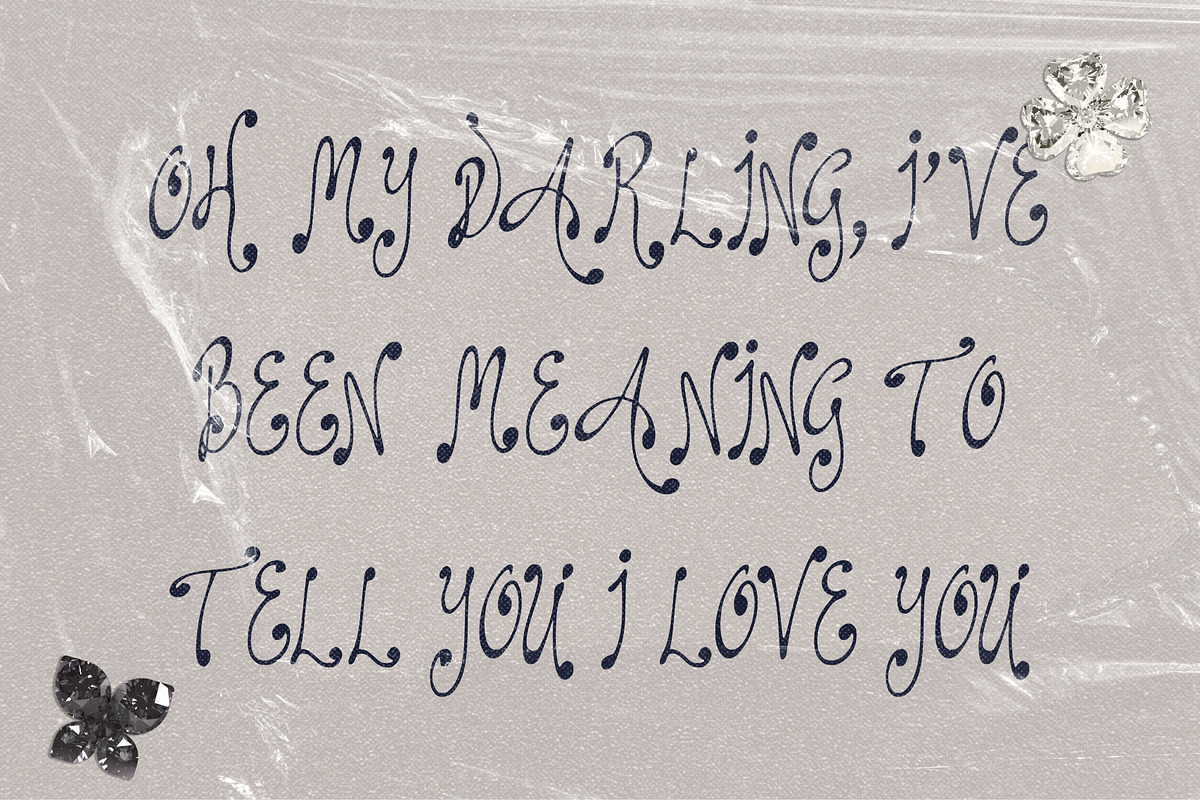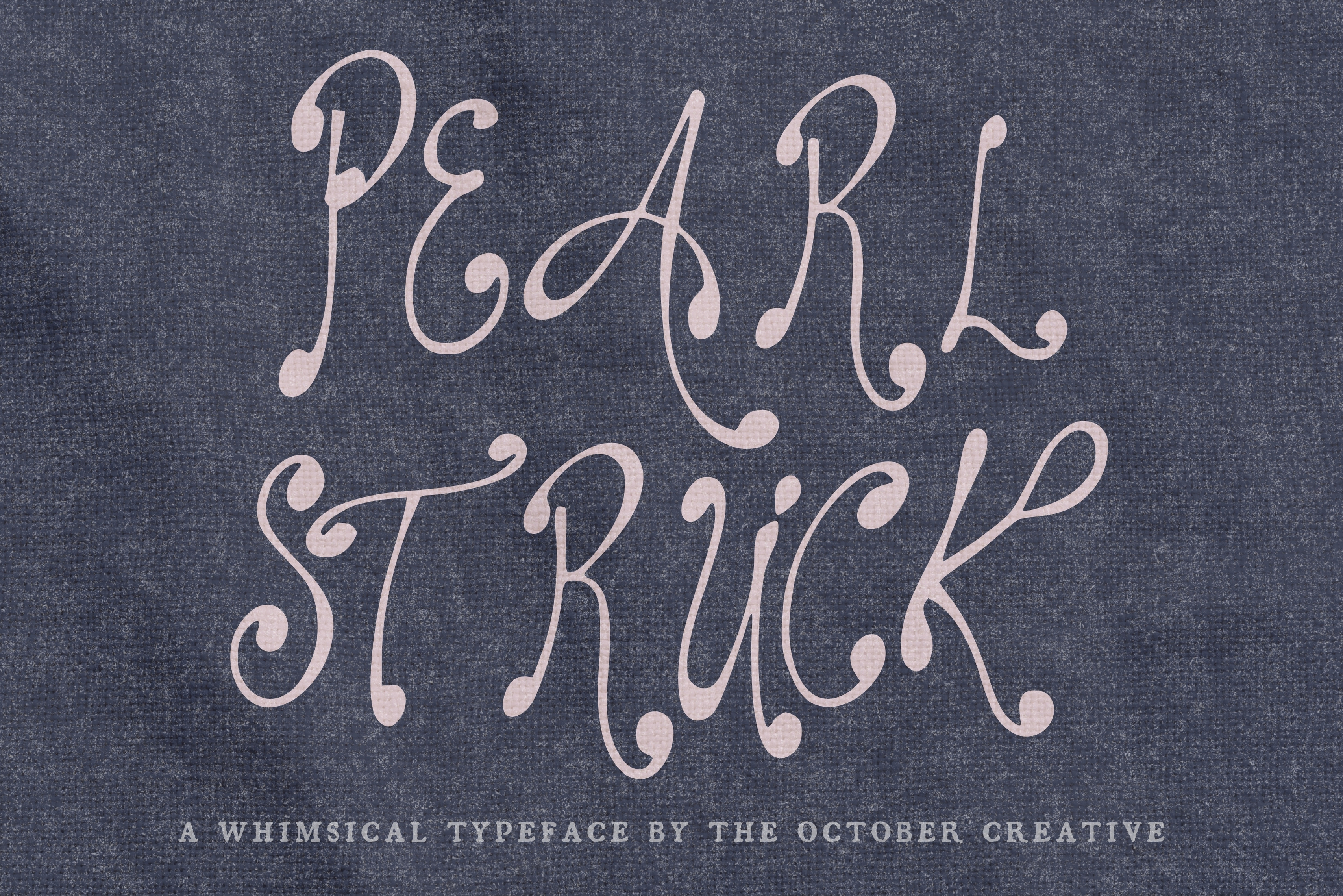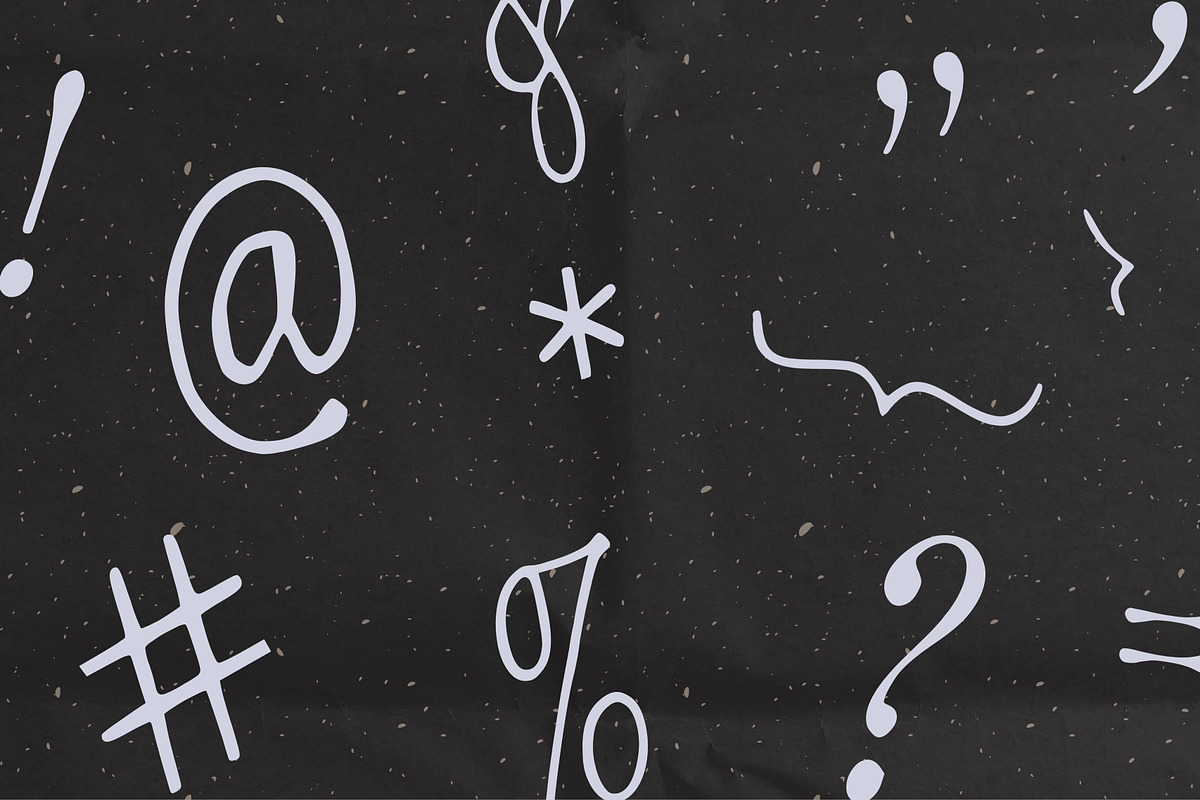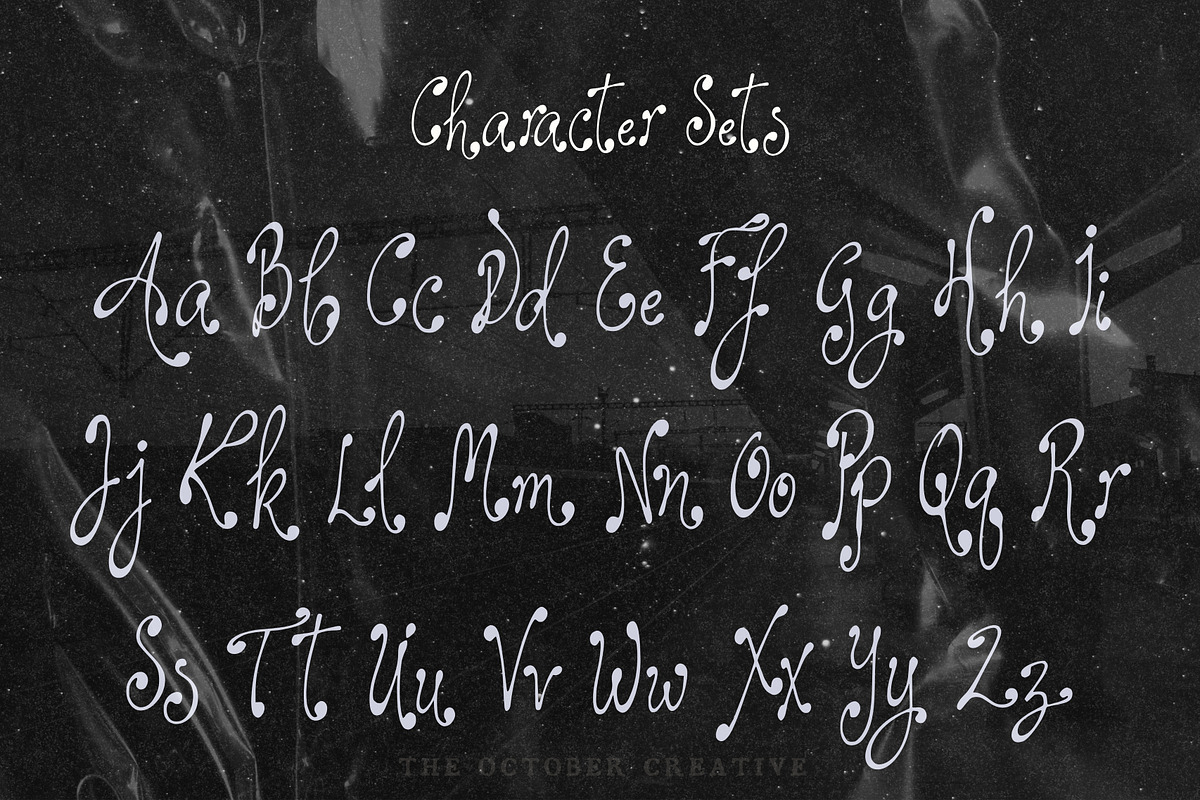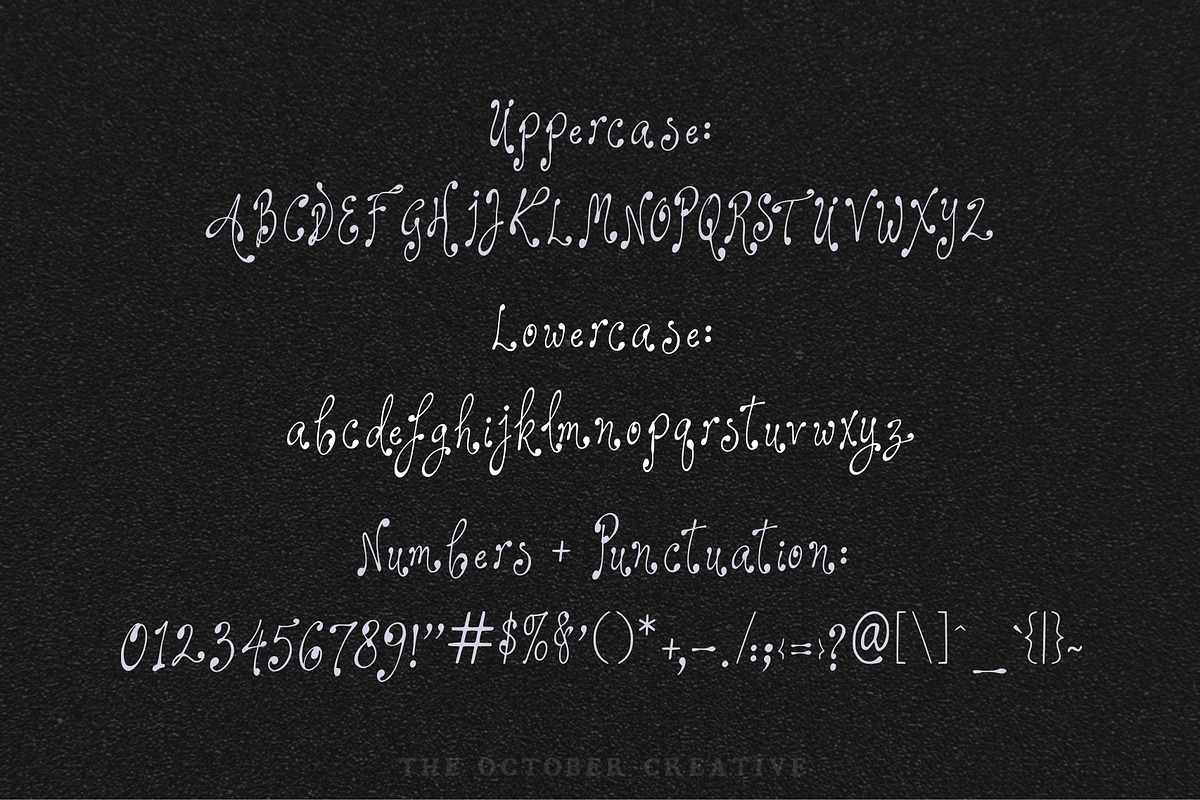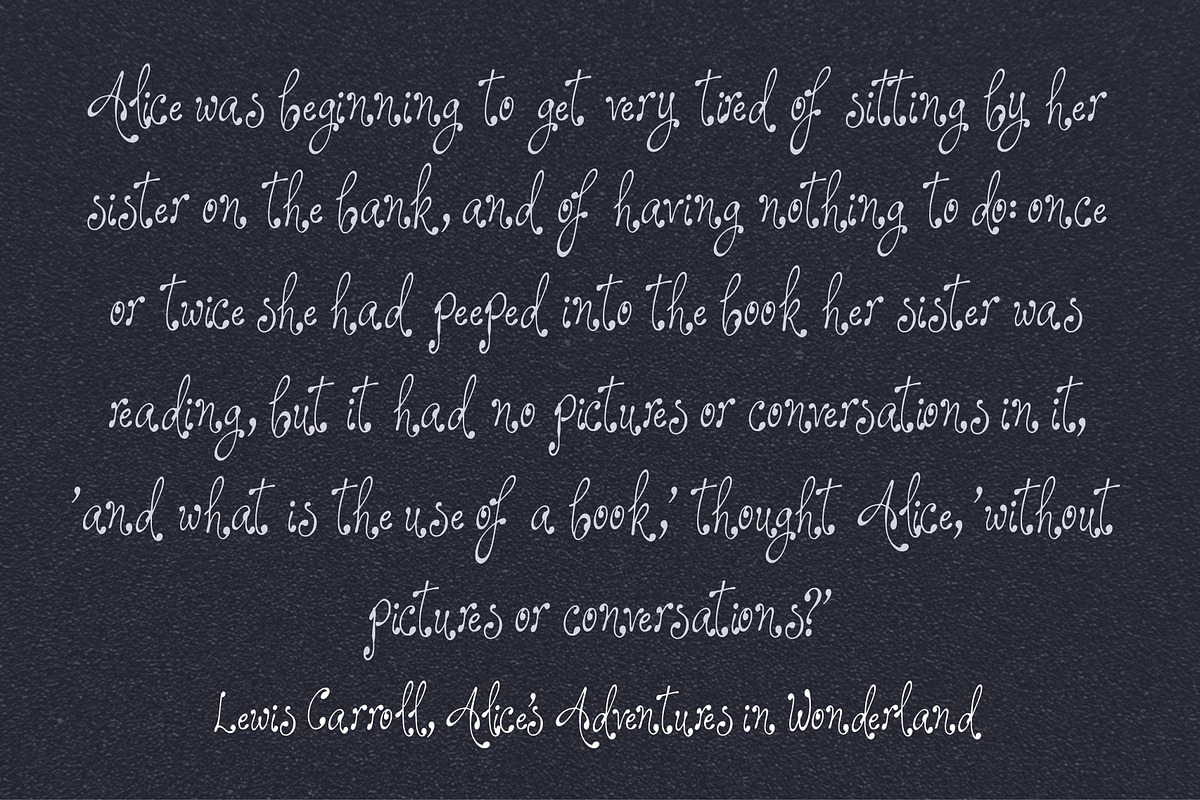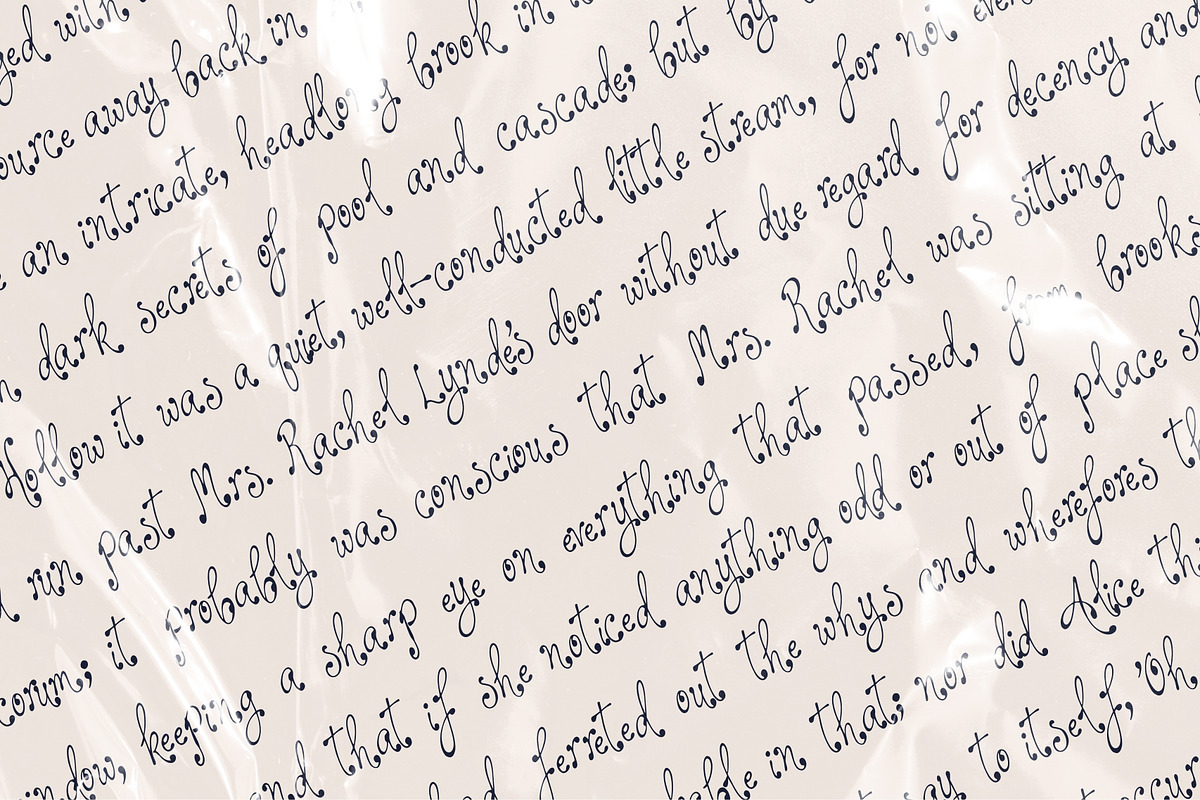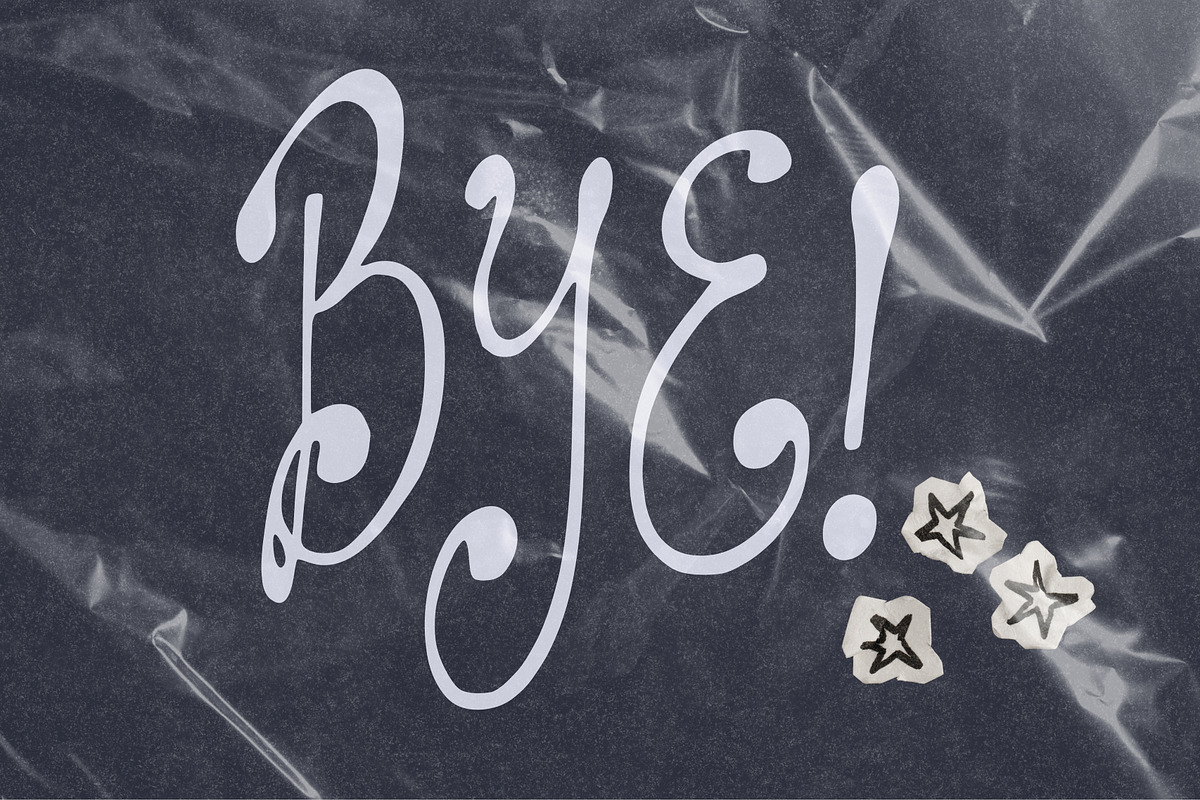
Pearlstruck Flowing Script Font
Pearlstruck is slanted and connected, with looping ascenders and a soft calligraphic swell. It fits coquette stickers, bridal shower invitations, gift tags, and signature-style logos.
CHARACTER SET
Uppercase A to Z, lowercase a to z, numerals 0 to 9, and every standard keyboard punctuation mark and symbol: ! " # $ % & ' ( ) * + , - . / : ; < = > ? @ [ \ ] ^ _ ` { | } \~
Curly quotes and apostrophes (‘ ’ “ ”), en and em dashes, an ellipsis, and a bullet.
Accented letters: À Á Â Ã Ä Å Ç È É Ê Ë Ì Í Î Ï Ñ Ò Ó Ô Õ Ö Ù Ú Û Ü and their lowercase forms.
LANGUAGES SUPPORTED
English, plus the accented vowels, Ñ, and Ç used in names and everyday words in Spanish, French, Italian, Portuguese, German, and Dutch. Not included: ß, Æ, Ø, Œ, and the upside-down ¿ and ¡.
SPECIAL CHARACTERS